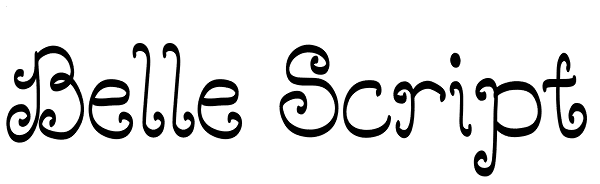
Belle Script
Belle Script is the first in a new series of melifonts, created entirely digitally using a pen tablet. A hybrid of script and print, it combines structure and elegance and makes for a stylishly clear typeface. Belle Script is the perfect font for a...